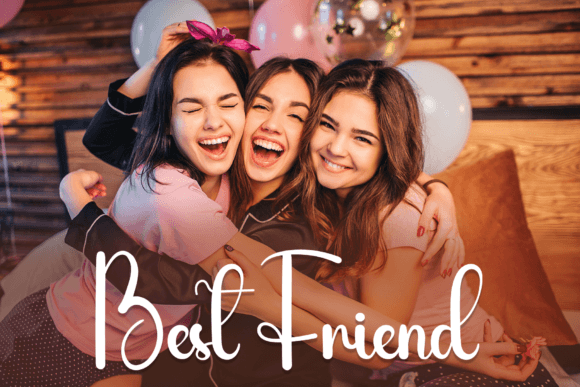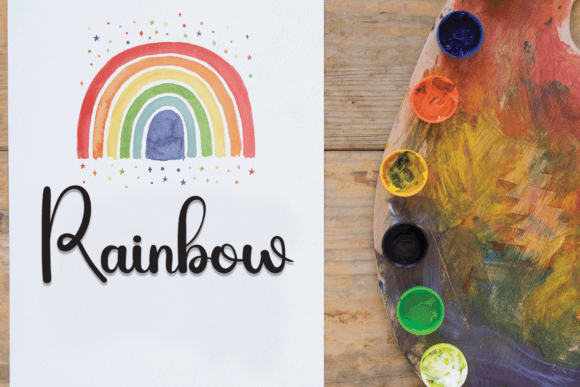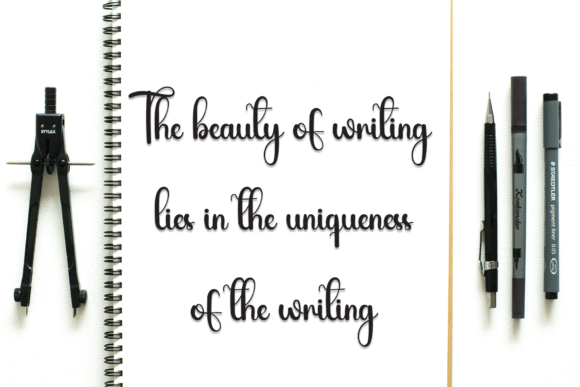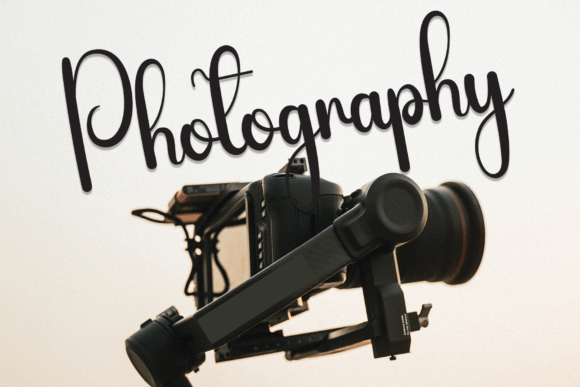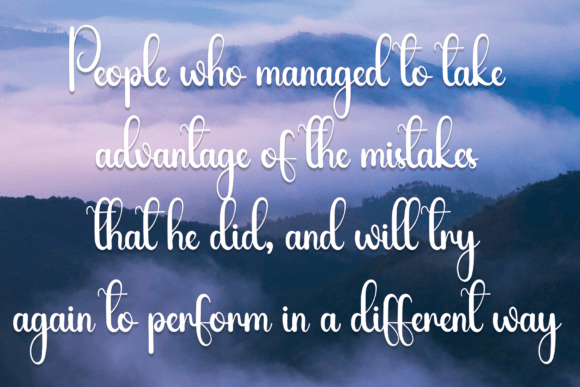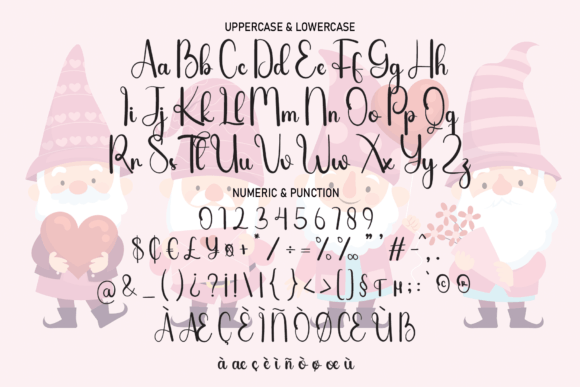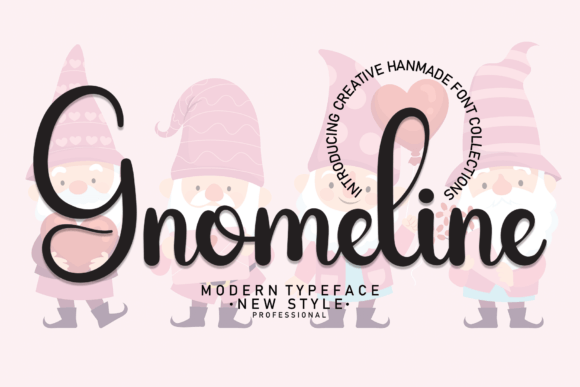
Gnomeline Font: Elevate Your Designs with a Touch of Whimsy
In the world of typography, fonts play a crucial role in conveying the tone and personality of a design. For designers and crafters looking to add a dash of whimsy and elegance to their projects, the Gnomeline Font is an excellent choice. This beautiful, hand-written font is perfect for a wide range of applications, from wall displays and wedding invitations to social media post logos, advertisements, and more.
What is Gnomeline Font?
Gnomeline Font is a stunning, modern script font that boasts a unique and stylish aesthetic. Its elegant, cursive letters are carefully crafted to add a touch of sophistication and charm to any design. The font’s flowing lines and delicate curves make it perfect for creating eye-catching displays, beautiful wedding invitations, and captivating social media graphics.
Key Features of Gnomeline Font
• Hand-written style: Gnomeline Font features a beautiful, hand-written style that adds a personal touch to any design.
• Elegant and whimsical: The font’s elegant and whimsical design makes it perfect for a wide range of creative projects.
• Perfect for display text: Gnomeline Font is optimized for display text, making it ideal for wall displays, wedding invitations, and social media post logos.
• Multipurpose: This versatile font can be used for various design projects, including advertisements, product packaging, labels, photography, watermarks, and more.
Uses of Gnomeline Font
Gnomeline Font is an incredibly versatile font that can be used for a wide range of design projects, including:
• Wall displays: Create stunning wall displays with Gnomeline Font, perfect for showcasing inspirational quotes, poems, or fun phrases.
• Wedding invitations: Add a touch of elegance and sophistication to your wedding invitations with this beautiful font.
• Social media post logos: Use Gnomeline Font to create eye-catching social media post logos that will make your brand stand out.
• Advertisements: This font is perfect for creating captivating advertisements that will grab the attention of your target audience.
• Product packaging: Add a personal touch to your product packaging with Gnomeline Font, making your products more appealing to customers.
• Product designs: Use this font to create stunning product designs that will make your products stand out from the competition.
• Labels: Create beautiful labels with Gnomeline Font, perfect for branding and product identification.
• Photography: Add a touch of elegance to your photography with this beautiful font, perfect for watermarks or captions.
• Invitations: Use Gnomeline Font to create stunning invitations for parties, events, or special occasions.
• Stationery: This font is perfect for creating beautiful stationery, including letterheads, notecards, and journals.
Why Choose Gnomeline Font?
With so many fonts available, why choose Gnomeline Font? Here are just a few reasons why this font stands out:
• Unique and stylish: Gnomeline Font boasts a unique and stylish aesthetic that will make your designs stand out.
• Elegant and whimsical: This font’s elegant and whimsical design makes it perfect for a wide range of creative projects.
• High-quality: Gnomeline Font is a high-quality font that is optimized for use in a variety of design applications.
• Easy to use: This font is easy to use and can be easily integrated into your design workflow.
In conclusion, Gnomeline Font is a stunning, hand-written font that is perfect for designers and crafters looking to add a touch of whimsy and elegance to their projects. With its elegant and whimsical design, this font is ideal for a wide range of creative applications, from wall displays and wedding invitations to social media post logos and advertisements. Whether you’re looking to create beautiful display text, captivating advertisements, or stunning product designs, Gnomeline Font is an excellent choice.